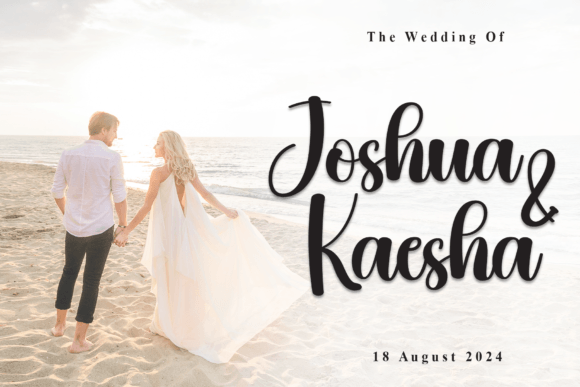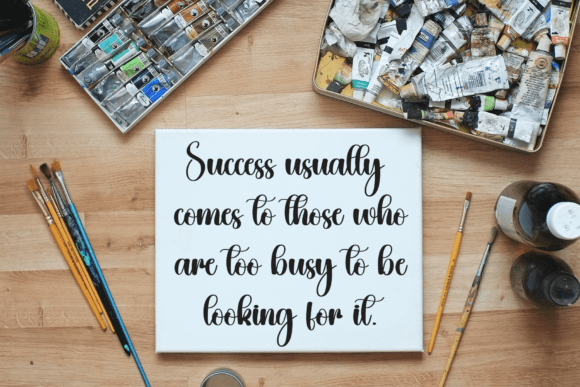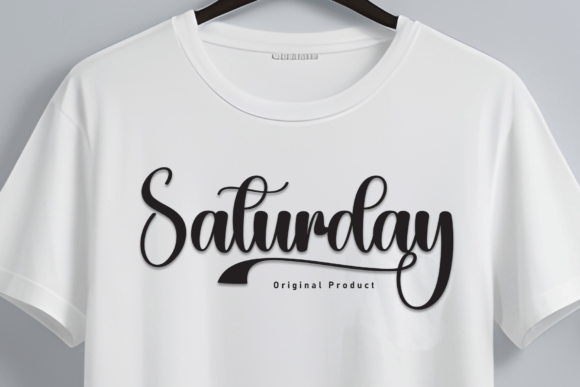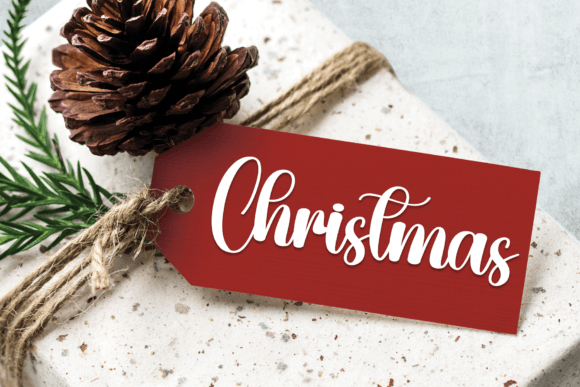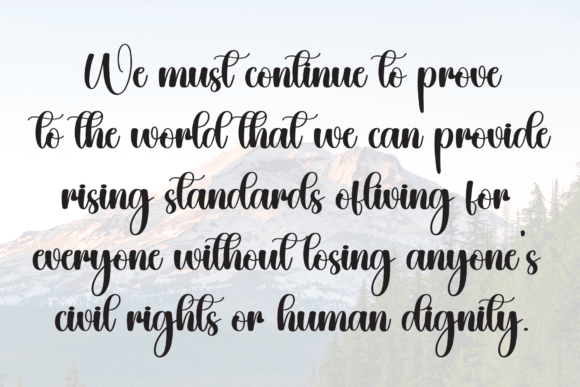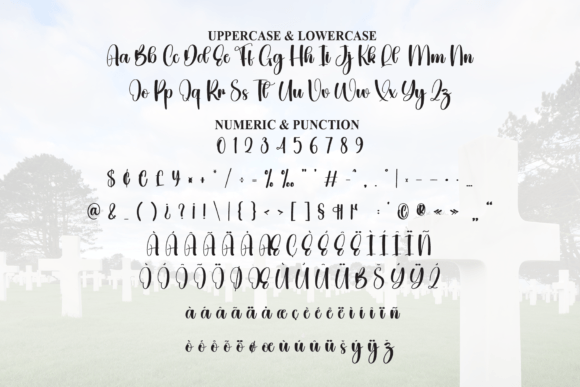
Cemetery Font: The Ultimate Choice for Spooky and Mysterious Designs
Are you looking for a font that can add a touch of darkness and mystery to your designs? Look no further than Cemetery Font, a bold, handwritten font that is perfect for creating eye-catching titles and designs with a spooky vibe. In this article, we’ll explore the features and benefits of Cemetery Font, and show you how to use it to take your designs to the next level.
What is Cemetery Font?
Cemetery Font is a unique, handwritten font that is designed to evoke a sense of mystery and intrigue. Its thick letters give it a strong presence, making it perfect for creating bold and eye-catching titles and designs. The font has a distinctive, spooky vibe that is perfect for Halloween themes, or for adding a touch of darkness to any design.
Features of Cemetery Font
Cemetery Font has a number of features that make it the perfect choice for designers and crafters. Some of its key features include:
• Bold and Thick Letters: The font’s thick letters give it a strong presence, making it perfect for creating eye-catching titles and designs.
• Handwritten Style: The font’s handwritten style gives it a unique, personal touch that is perfect for adding a touch of mystery and intrigue to your designs.
• Spooky Vibe: The font’s distinctive, spooky vibe makes it perfect for Halloween themes, or for adding a touch of darkness to any design.
• Easy to Read: Despite its bold and thick letters, Cemetery Font is easy to read, making it perfect for use in titles, headings, and other design elements.
Benefits of Using Cemetery Font
There are many benefits to using Cemetery Font in your designs. Some of the key benefits include:
• Adds a Touch of Mystery: Cemetery Font’s unique, spooky vibe adds a touch of mystery and intrigue to any design.
• Perfect for Halloween Themes: The font’s spooky vibe makes it perfect for use in Halloween themes, such as invitations, decorations, and other designs.
• Great for Eye-Catching Titles: The font’s bold and thick letters make it perfect for creating eye-catching titles and headings.
• Easy to Use: Cemetery Font is easy to use, and can be easily integrated into any design.
How to Use Cemetery Font
Cemetery Font is easy to use, and can be easily integrated into any design. Here are a few tips for using the font:
• Use it for Titles and Headings: Cemetery Font is perfect for use in titles and headings, where its bold and thick letters can make a big impact.
• Pair it with Other Fonts: Cemetery Font can be paired with other fonts to create a unique and interesting design.
• Use it for Halloween Themes: The font’s spooky vibe makes it perfect for use in Halloween themes, such as invitations, decorations, and other designs.
Here are a few tips and tricks for designers and crafters who want to get the most out of Cemetery Font:
• Experiment with Different Colors: Cemetery Font looks great in a variety of colors, so don’t be afraid to experiment and find the perfect color for your design.
• Use it in Combination with Other Design Elements: Cemetery Font can be used in combination with other design elements, such as images and graphics, to create a unique and interesting design.
• Pay Attention to Font Size: Cemetery Font can be used at a variety of font sizes, but it’s best to use it at a larger size to really make an impact.
Cemetery Font is a unique and versatile font that is perfect for designers and crafters who want to add a touch of mystery and intrigue to their designs. Its bold and thick letters, handwritten style, and spooky vibe make it perfect for use in a variety of designs, from Halloween themes to eye-catching titles and headings. With its ease of use and flexibility, Cemetery Font is a great choice for anyone looking to take their designs to the next level.